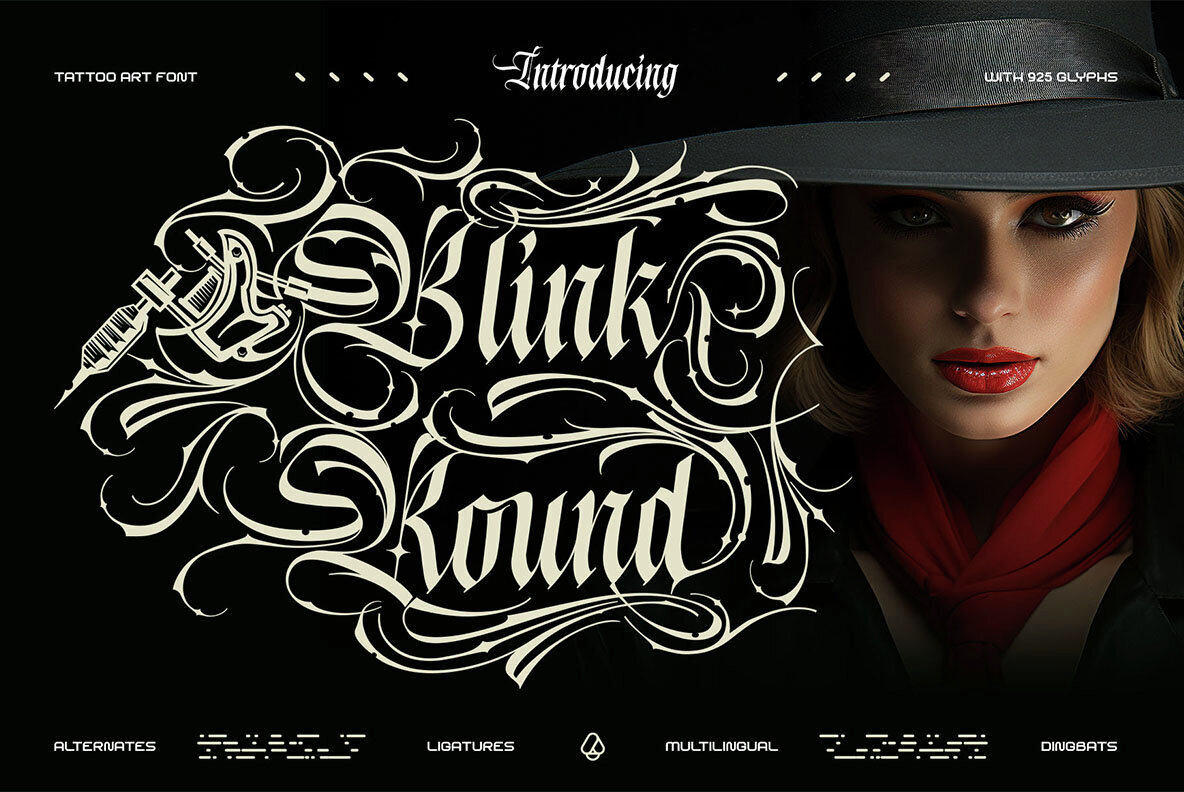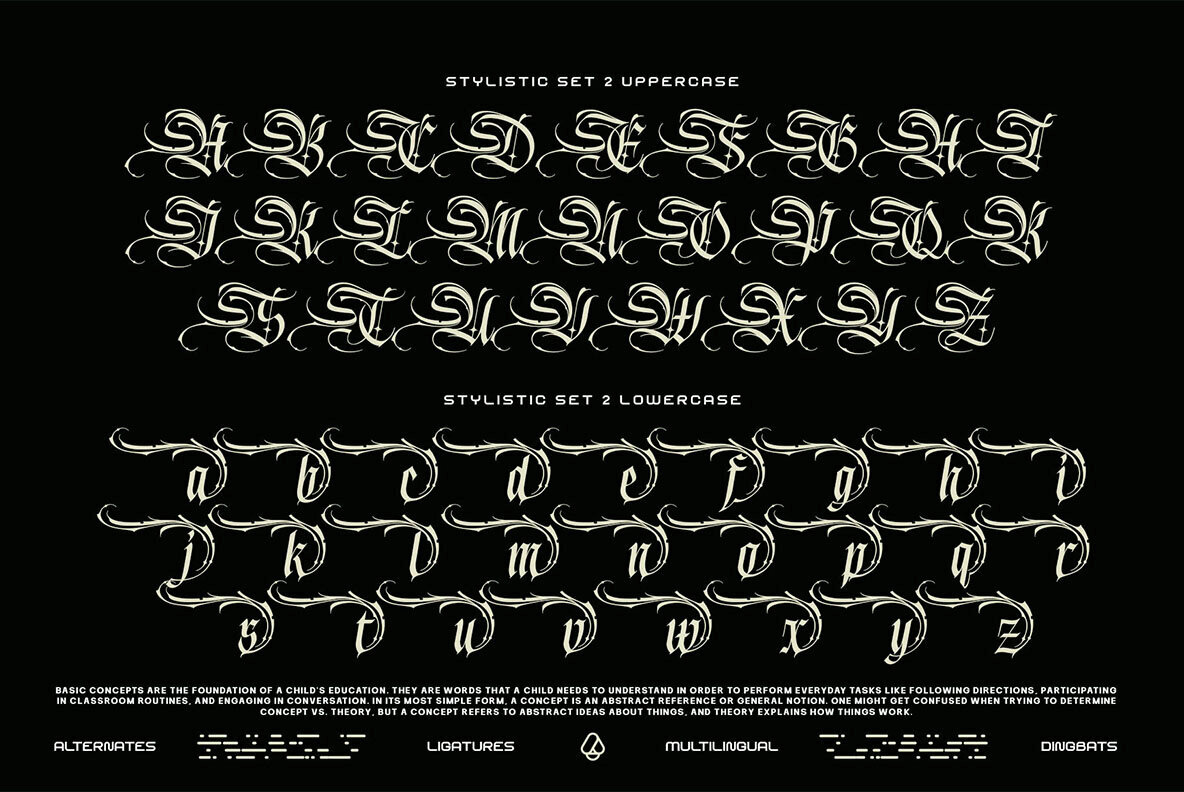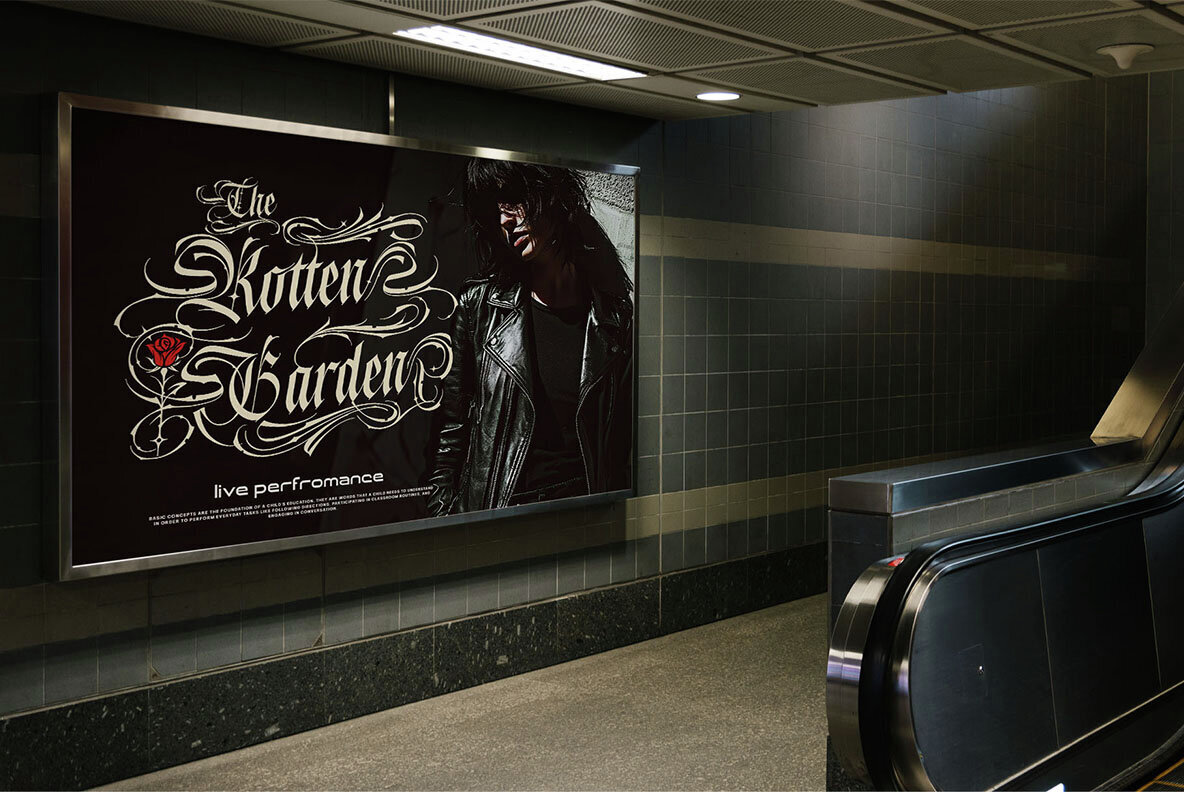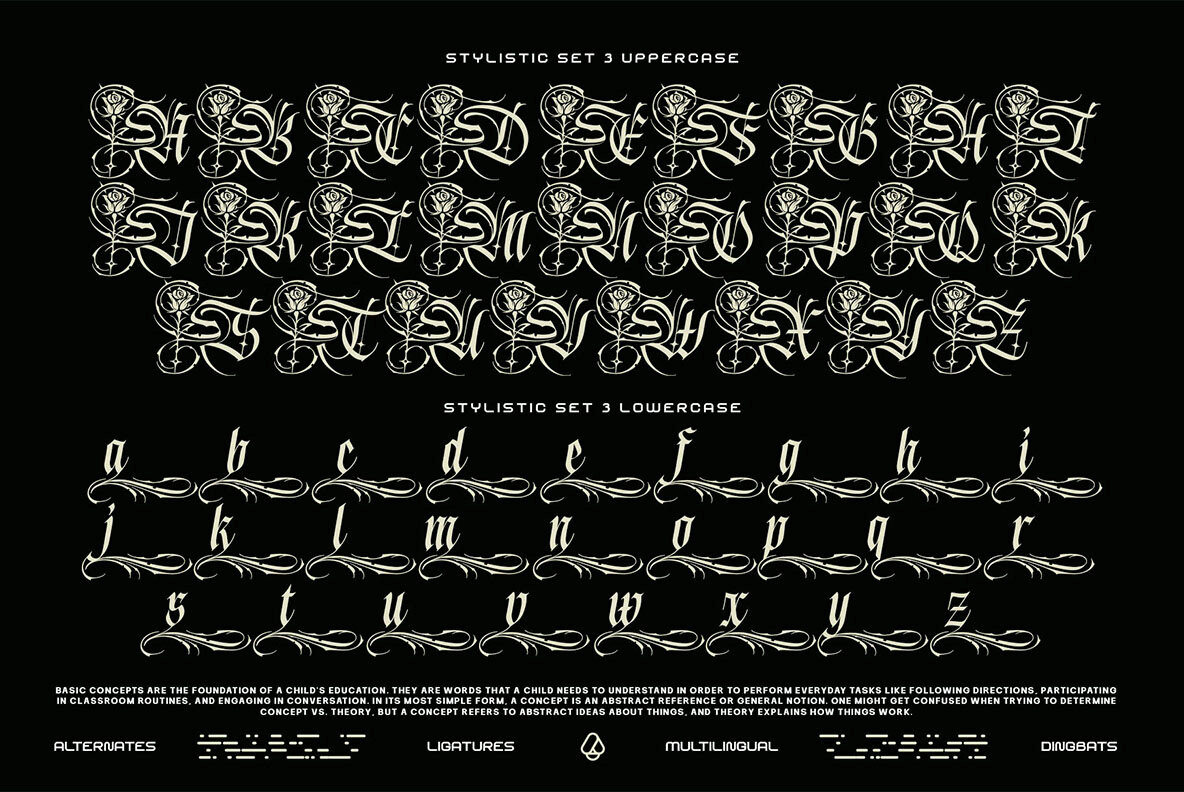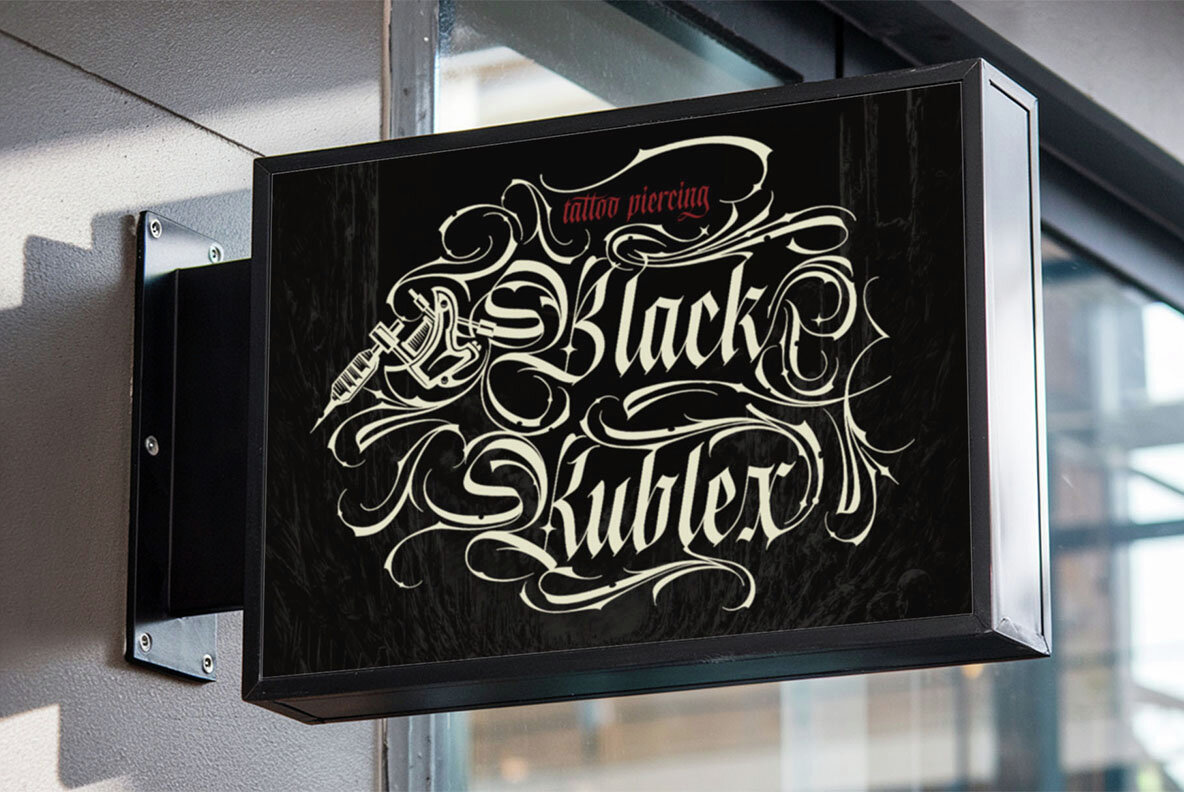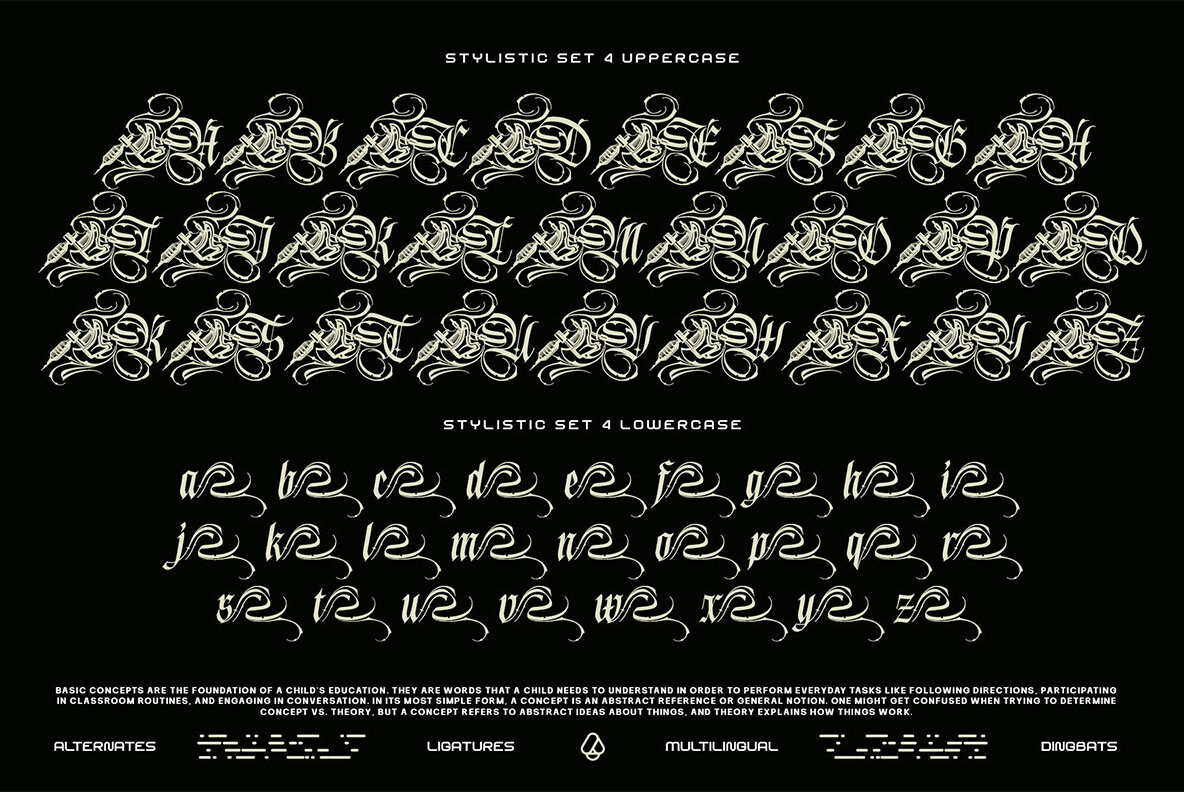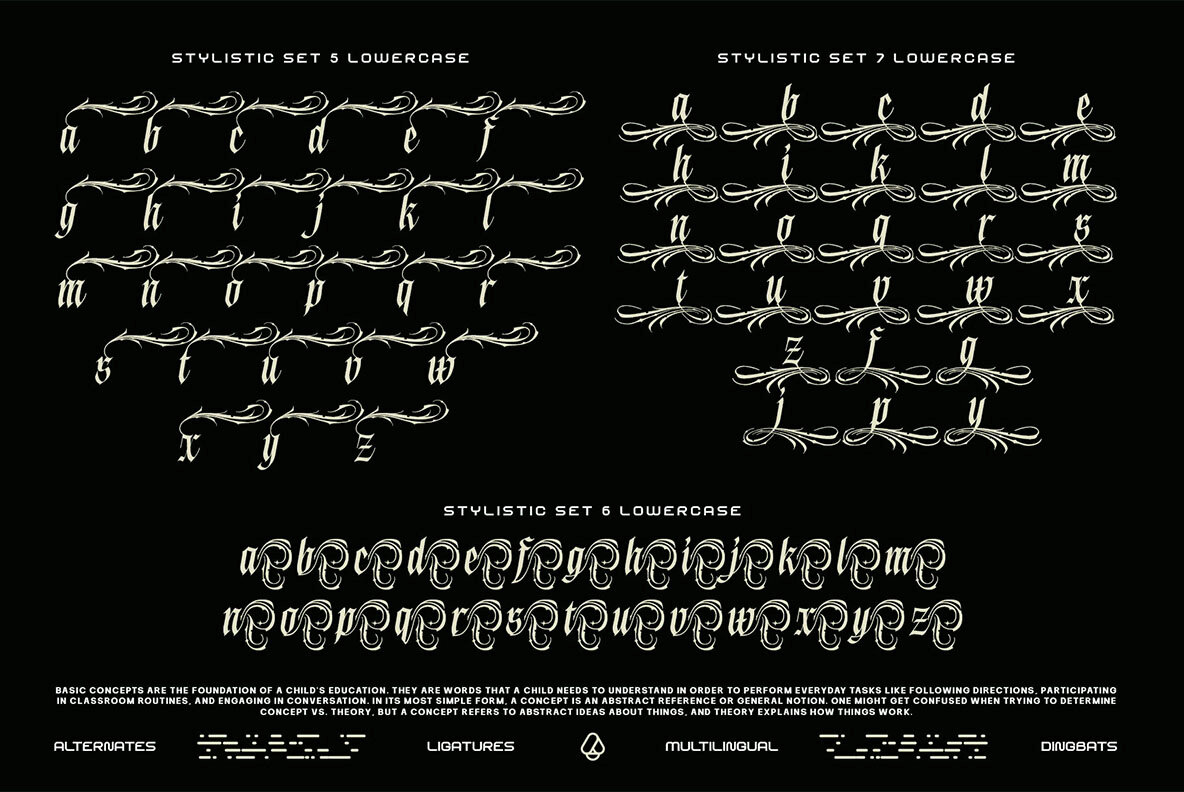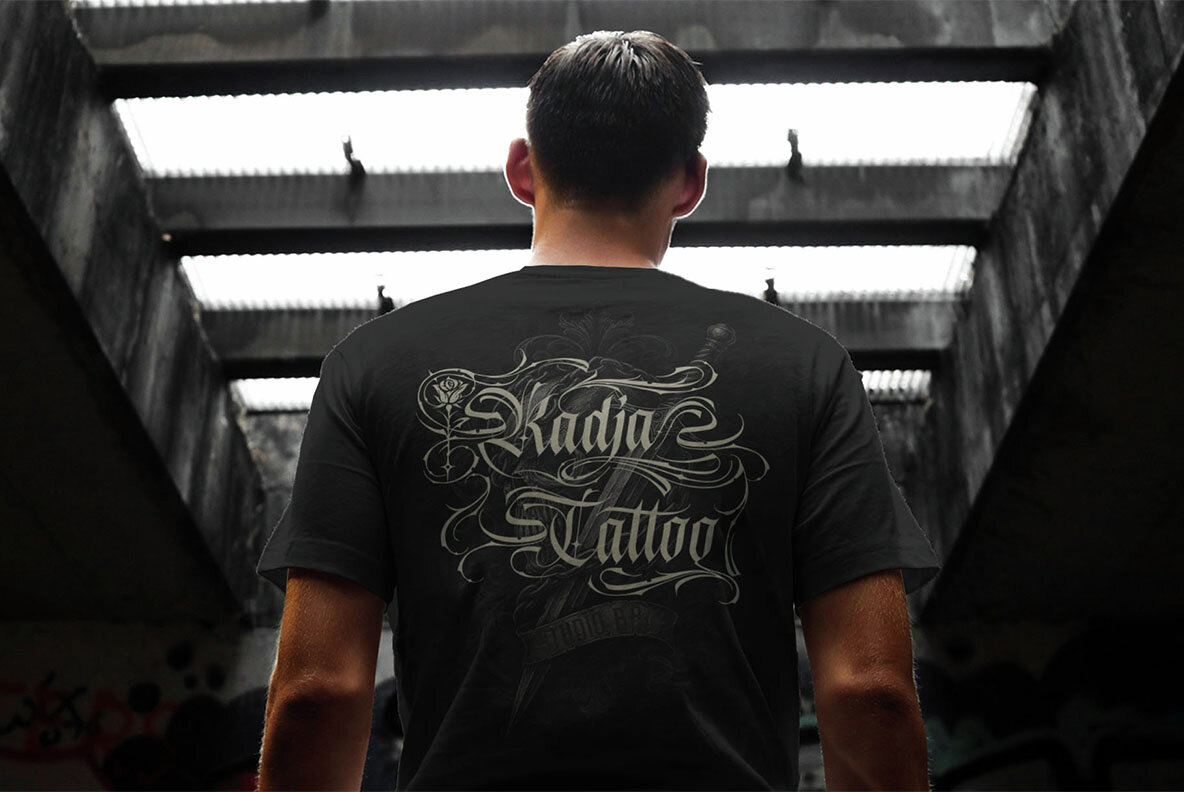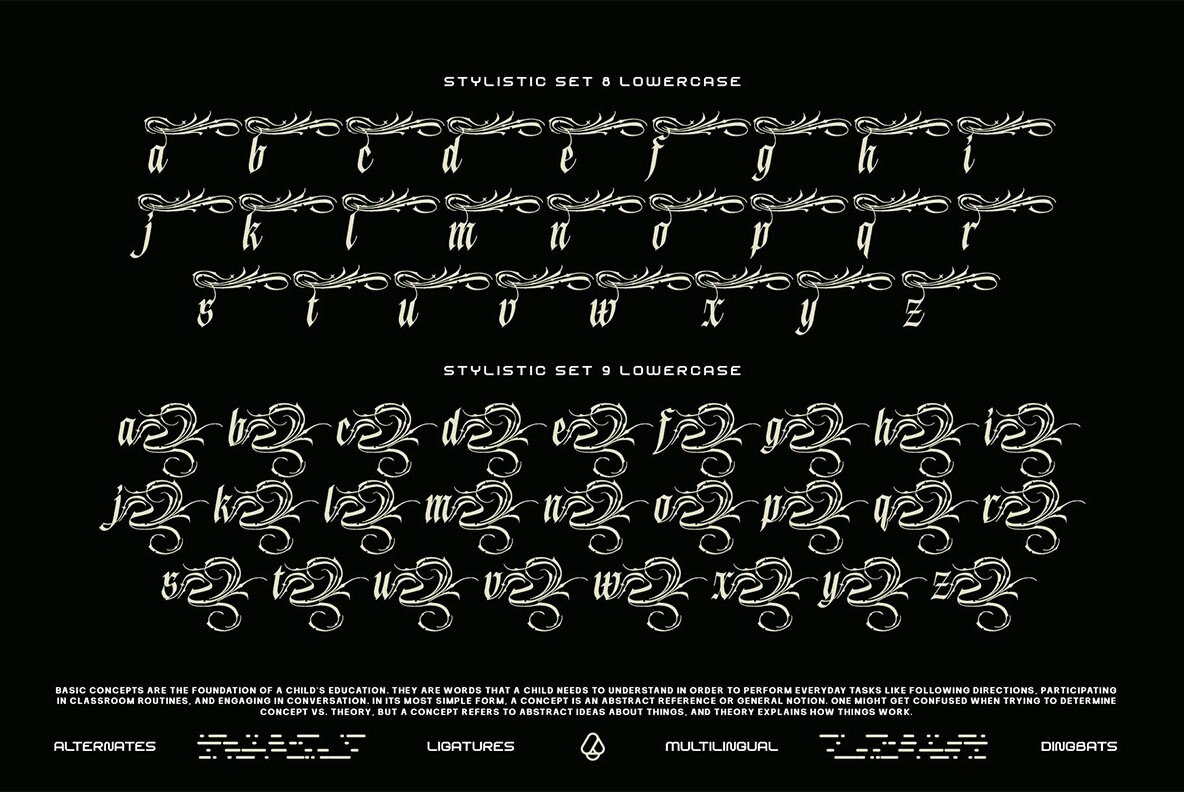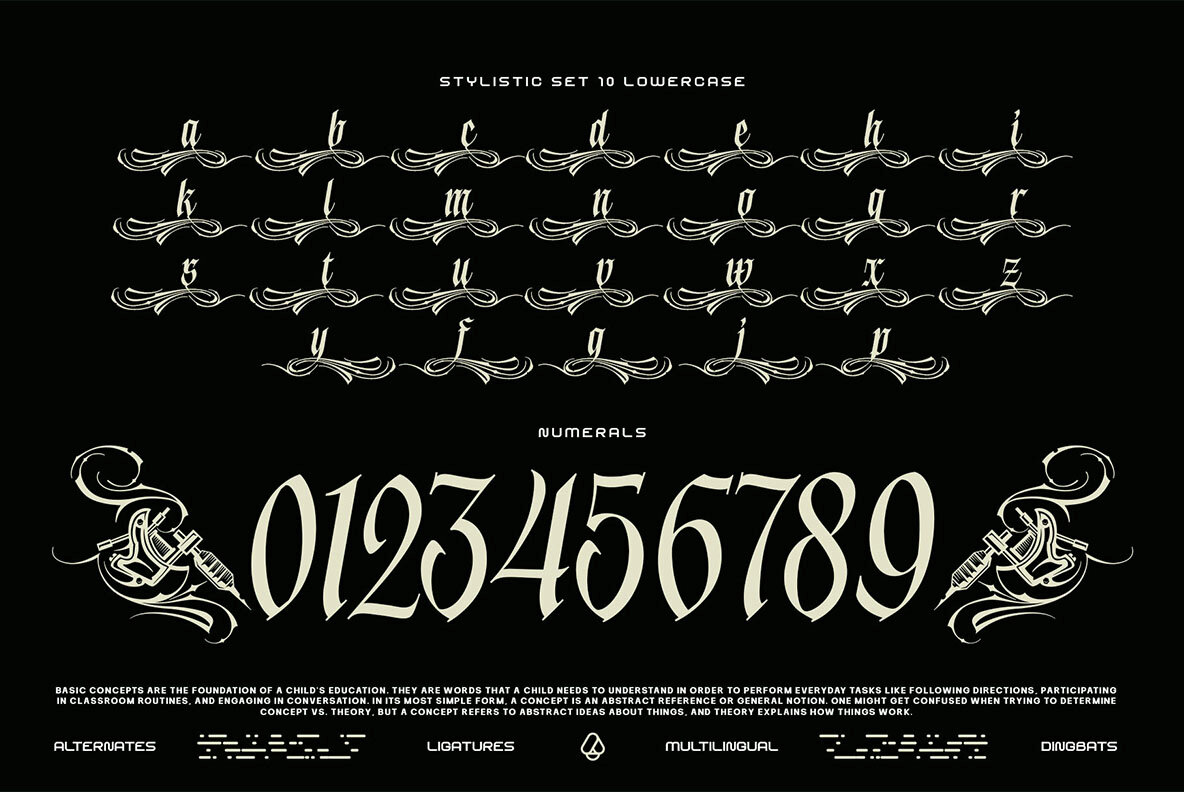
Blink Round Font
expand_font Blink Round Font Unleash audacious flair with Blink Round Typeface: a fearless blackletter script inspired by rebellious tattoo energy. Blackletter,Tattoo,Gothic,Script,Aggressive,Fierce,Badass,Sharp,Edgy,Ornate,Medieval,Vintage,Old Style Explore Exceptional Fonts for Digital and Traditional Media Fontpath offers a large variety of fonts for every designer, all at affordable prices and in multiple formats. Browse our best in class fonts today for all your creative needs, you can find everything you need right here at our site! Fonts,sans,sans serif,retro,script,decorative,title,FontPath 20140312040223 Fontpath offers 200,000+ of the most professional fonts found online, start downloading today! Real-Time Font Discovery at Fontpath